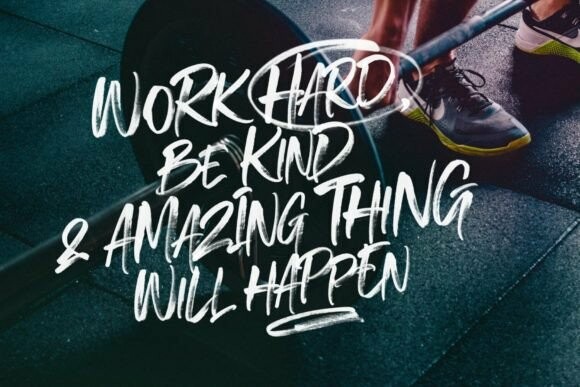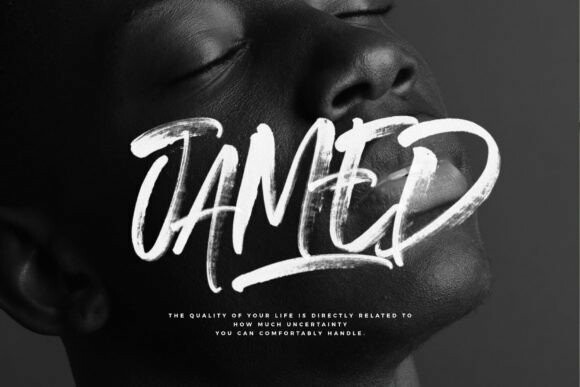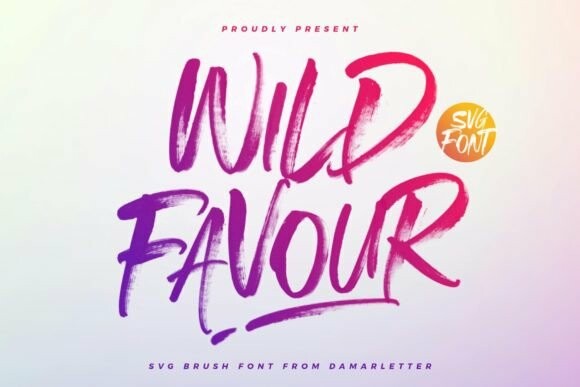
Wild Favour Font
Wild Favour Font, an SVG Brush font that encapsulates the raw vitality and texture of genuine brush strokes. Its bold, organically formed letterings inject a dash of authenticity and artistry into your creations, adding depth and dimension. Every character in the WildFavour lineup is crafted to exude high-resolution details, giving the illusion of being hand-painted, and adding a tangible quality to your projects.
Wild Favour imbues your designs with a rugged sophistication whether you’re creating commanding posters, daring apparel, captivating logos, or influential social media graphics. It adds a momentum and intensity that is palpably engaging. The SVG format of Wild Favour retains every extraordinary detail, encapsulating the subtle nuances of pressure and texture within each brushstroke, making the font a perfect fit for high-resolution manifestations that thrive on the quality of its brush details.
Engage with the audacious and natural artistry of Wild Favour, an SVG Brush font that ensures your designs resonate with a vibrant and eloquent style. Be embraced by the distinct and unruly spirit of Wild Favour – a choice that dares to be different.